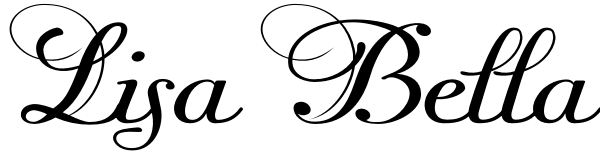
Lisa Bella
Lisa is an elegant script family in the tradition of early Italian type designers like Bodoni. I added counter strokes and floral embellishments to the font. Lisa comes in three variations: the beautiful Lisa Bella, the flowery Lisa Fiore and the...